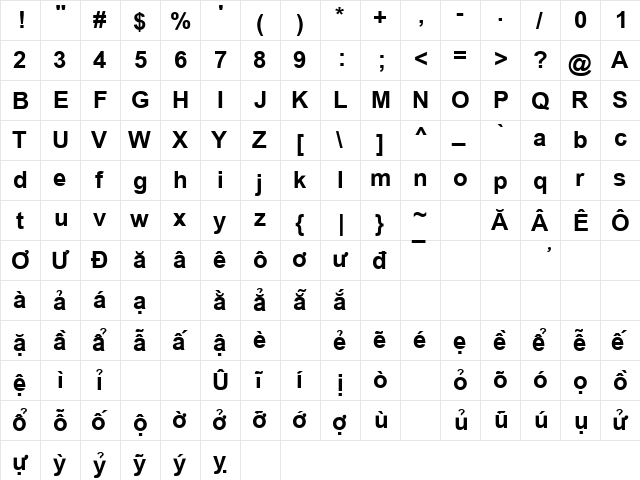
.VnArial Bold
Design Context for .VnArial Typeface
.VnArial offers clean, dependable letterforms without strong stylistic allegiance, making it a practical choice for designers who need flexibility. Its bold stroke weight gives it real presence on the page.